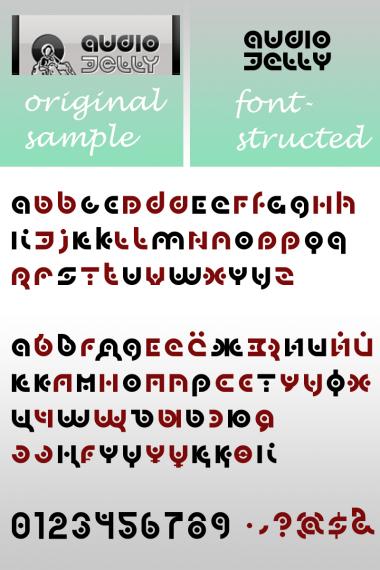
• Liked www.audiojelly.com's logo. Thought it'd be fun to create a font out of it, so pushed it a little further by adding caps, numbers & cyrillic glyphs. Thanks.
If you're a fan of house music, you might be familiar with www.audiojelly.com. Due to my recent interest in typography, thought it would be fun to create a font here based on audiojelly's logo. The alternative d is available under "`".
Also added cyrillic (incl. kazakh).
I wouldn't mind getting my hand on that W! ;-)
Wow! Another FS convergent thinking! I've working on a similar idea, but yours are better! Each day it's more dificult be creative in this boiling FS world, I see it... Well done, pal.
Neoqueto's approach is much more futuristic and avant-garde, yours is more reminding the rounded fonts of the 1970s but i think you should see it.
I wouldn't say that what I did is better, it's just different, and was based on a sample, which made it easier to continue. I'll be looking forward to seeing your font done :)
I should mention that after googling, found that Audiojelly's logo was designed by Luis Angel Morales.
Cool design, I think you make this font better than the original sample.